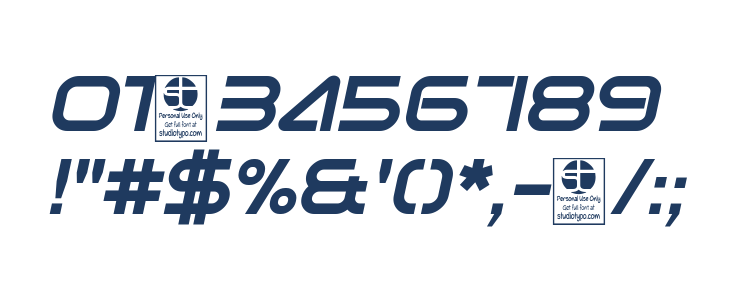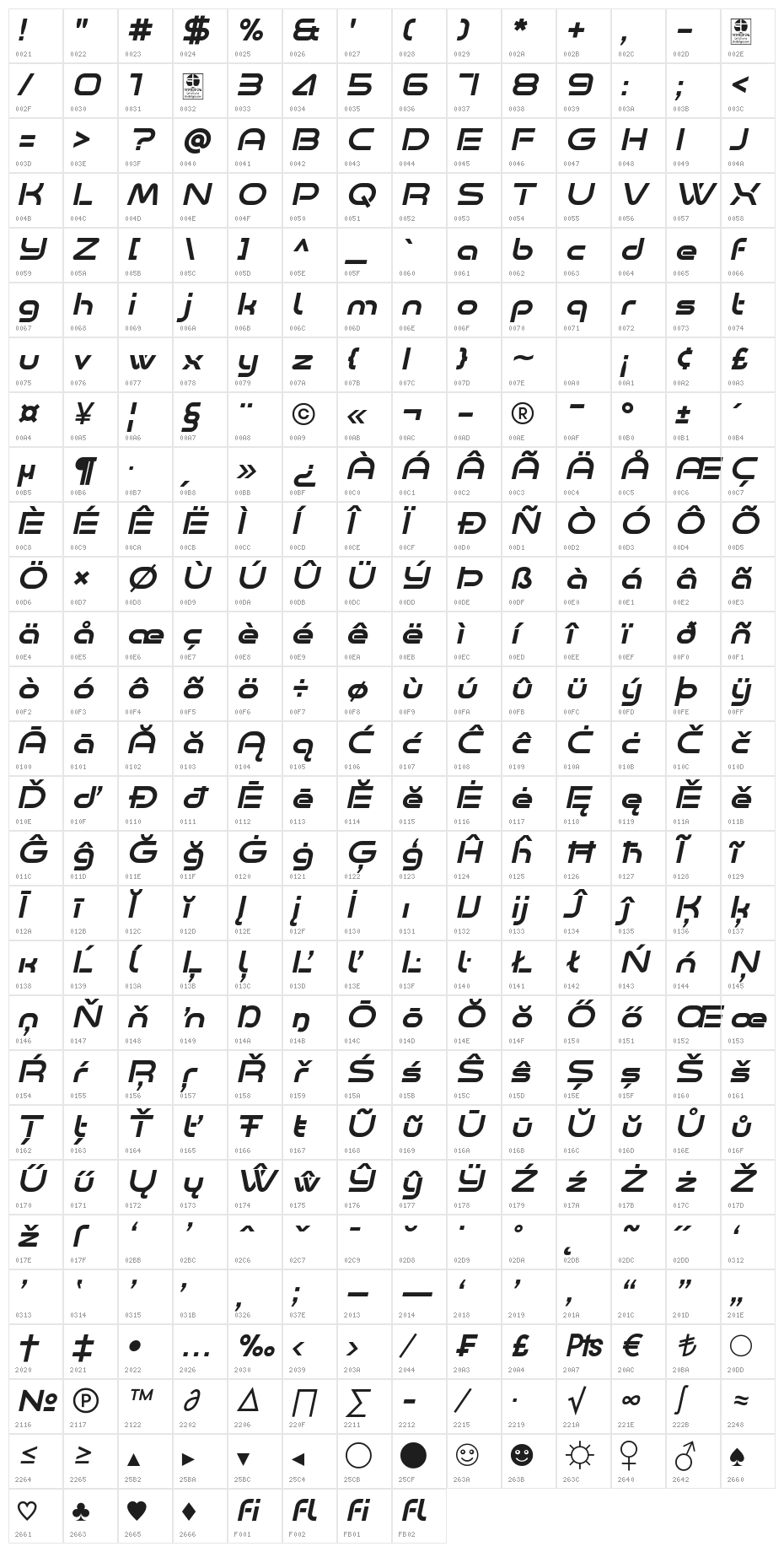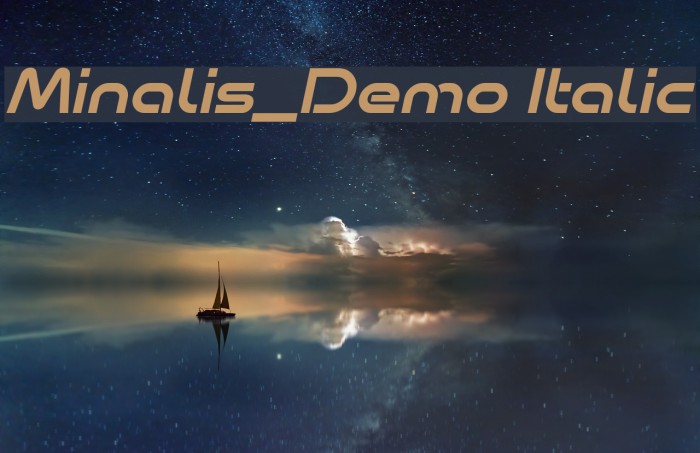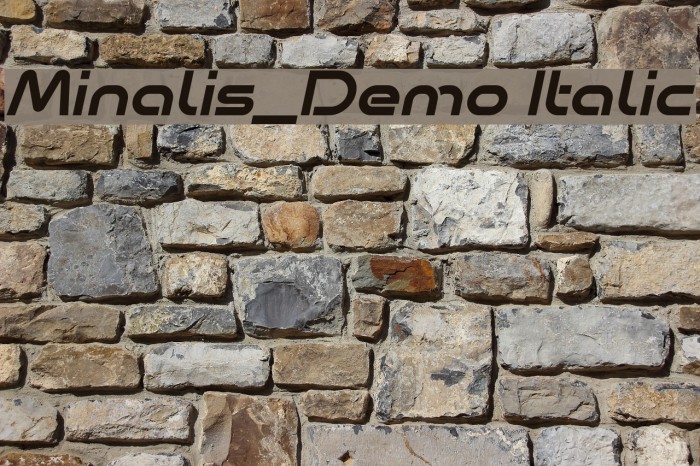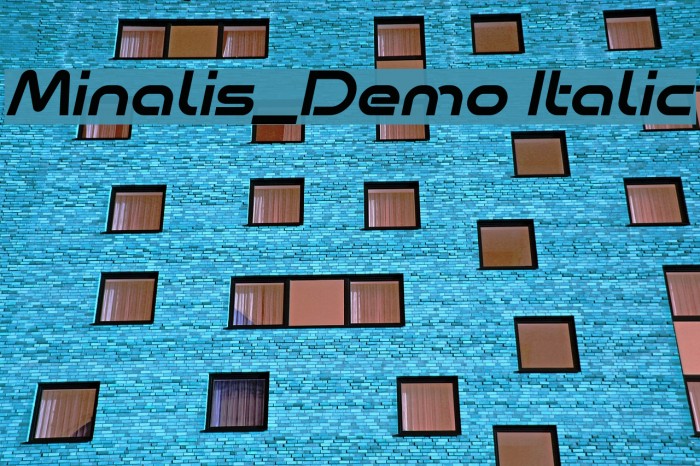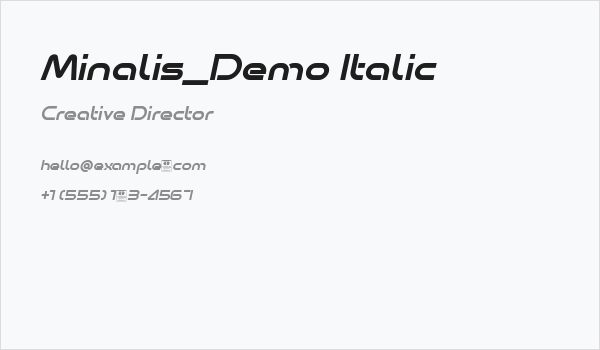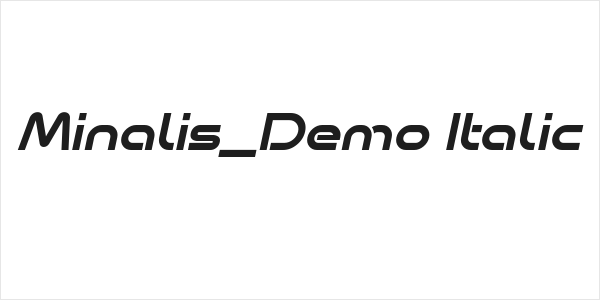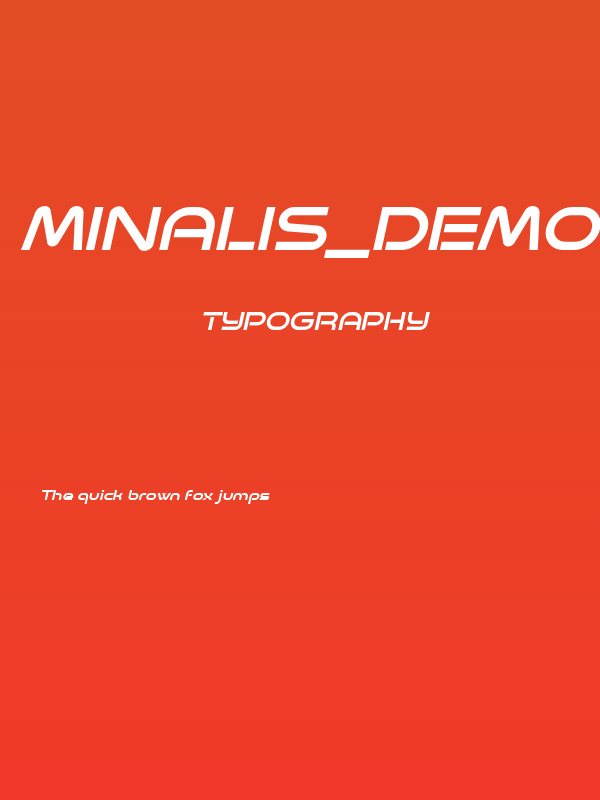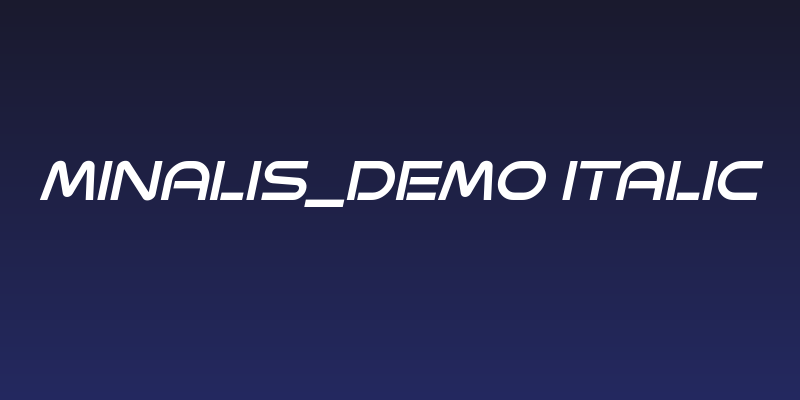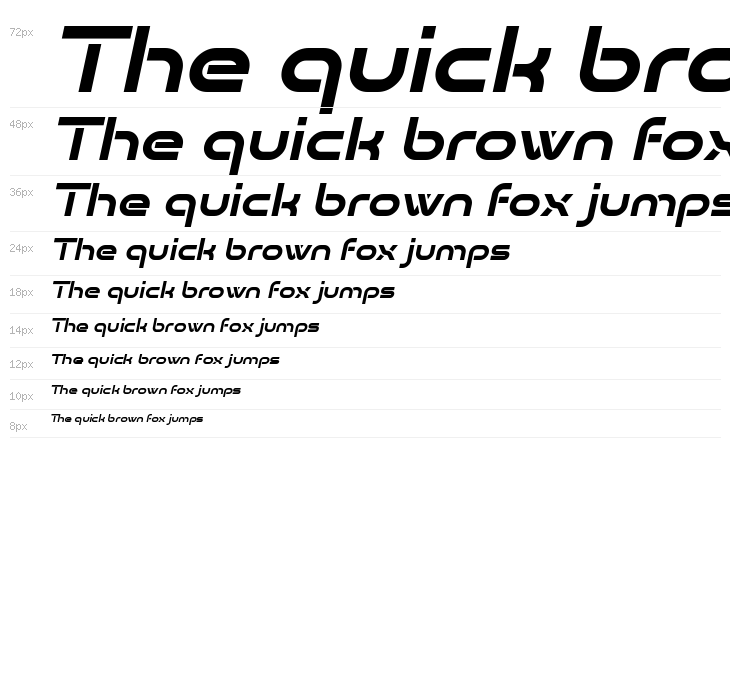
Minalis_Demo Italic Font
Minalis_Demo Italic Description
This font features a sleek, modern design with a distinct italic slant, giving it a dynamic and forward-moving appearance. The characters are crafted with smooth curves and sharp edges, creating a sense of speed and agility. The uppercase letters are bold and commanding, while the lowercase letters maintain a consistent flow, enhancing readability. The numerals are clear and well-defined, matching the overall aesthetic of the font. Special characters are included, maintaining the same stylistic approach, making this font versatile for various applications.